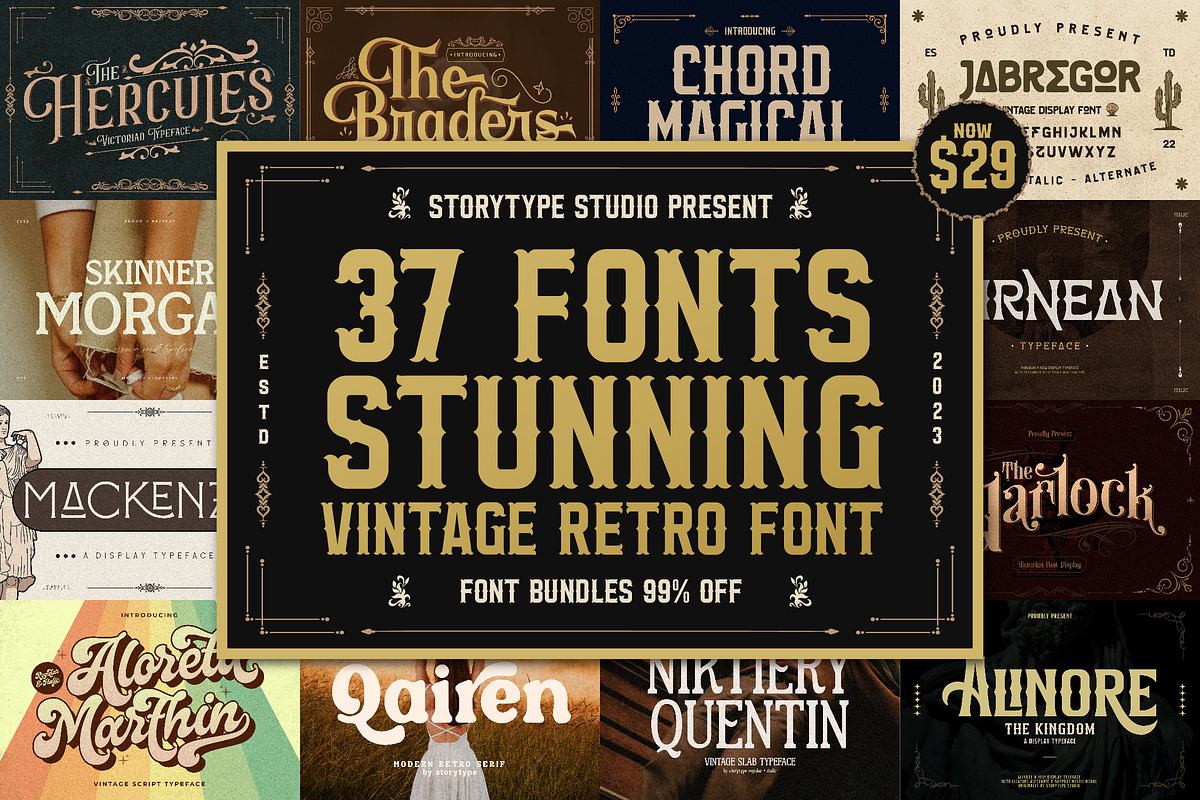
Stunning Vintage Retro Font Free Download
Stunning Vintage Retro Font Free Download is a bold and stylish typeface that channels the charm and flair of the past. With its nostalgic curves, decorative details, and classic letterforms, this font is perfect for vintage logos, retro posters, product labels, T-shirts, and branding that needs a touch of old-school cool. It captures the essence of mid-century design while still feeling fresh and relevant.
Designers love Stunning Vintage Retro Font Free Download for its ability to create instant visual impact and evoke a timeless, iconic feel. Whether you're going for a 70s groove or a 50s diner vibe, this font delivers authentic retro energy with every letter.